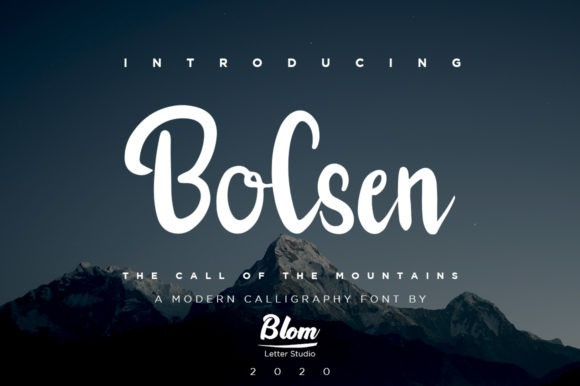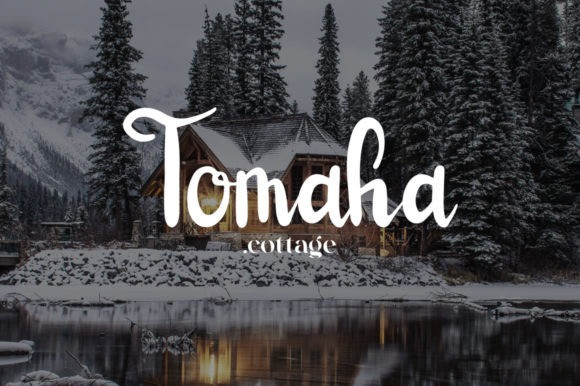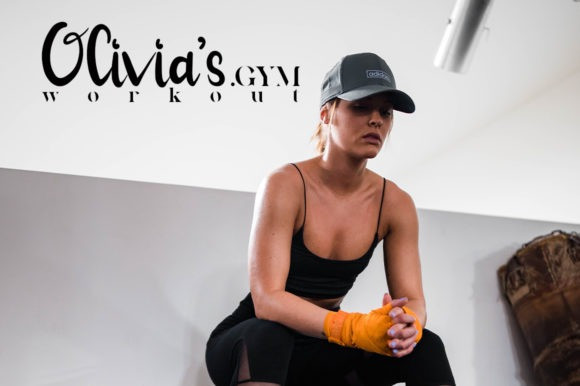
Bolsen Script Font
Bolsen is a magical handwritten font carefully created with a touch of elegance. It features an incredibly classic style, while still keeping a friendly feel. this font is the perfect font for making original and outstanding designs.